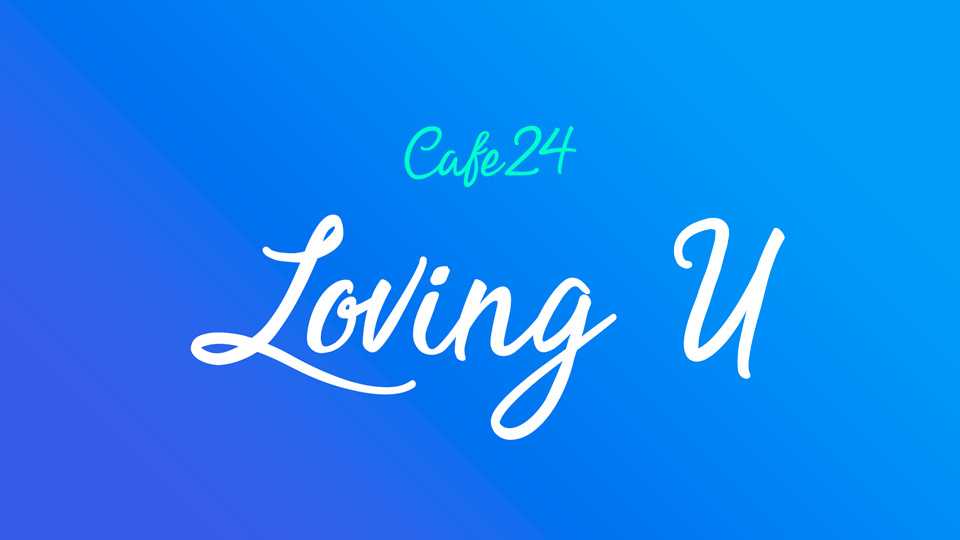
Download Loving U font, a sweet and lovely handwritten typeface with a natural flow. Loving U is perfect for greeting cards, branding, stationery design, social media, packaging, magazine layouts, prints and more.
Designer: Cafe24